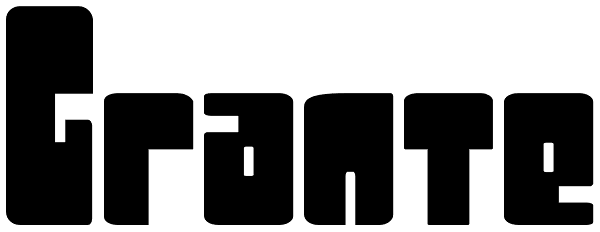
Grante
As you can see above, Grante can smartly fit pretty different needs. While lowercase letters are bold-with-soft-edges, caps are magic: this font counts more than 100 ligatures for you to play in an OpenType-aware application. It is worth mentioning...